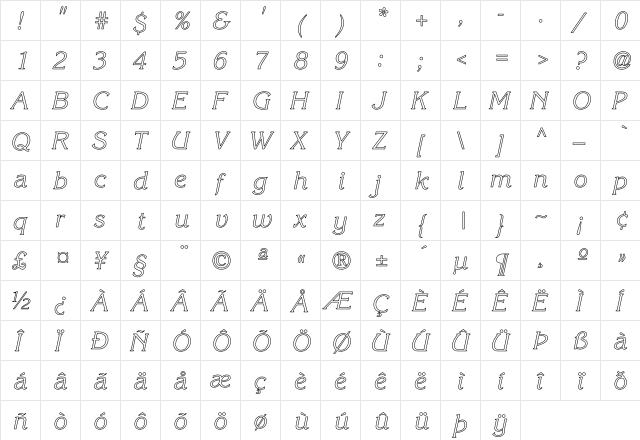
Korinna-KursivRegular Hollow Regular
Design Context for Korinna-KursivRegular Hollow Typeface
Korinna-KursivRegular Hollow is a composed and adaptable typeface that performs quietly and consistently across a wide range of design contexts. The dynamic lean of this cut emphasises speed and emphasis in any layout.
Pro Tip: Try Korinna-KursivRegular Hollow for annotation and caption copy alongside an upright companion — the contrast in angle creates a dynamic but ordered typographic system.